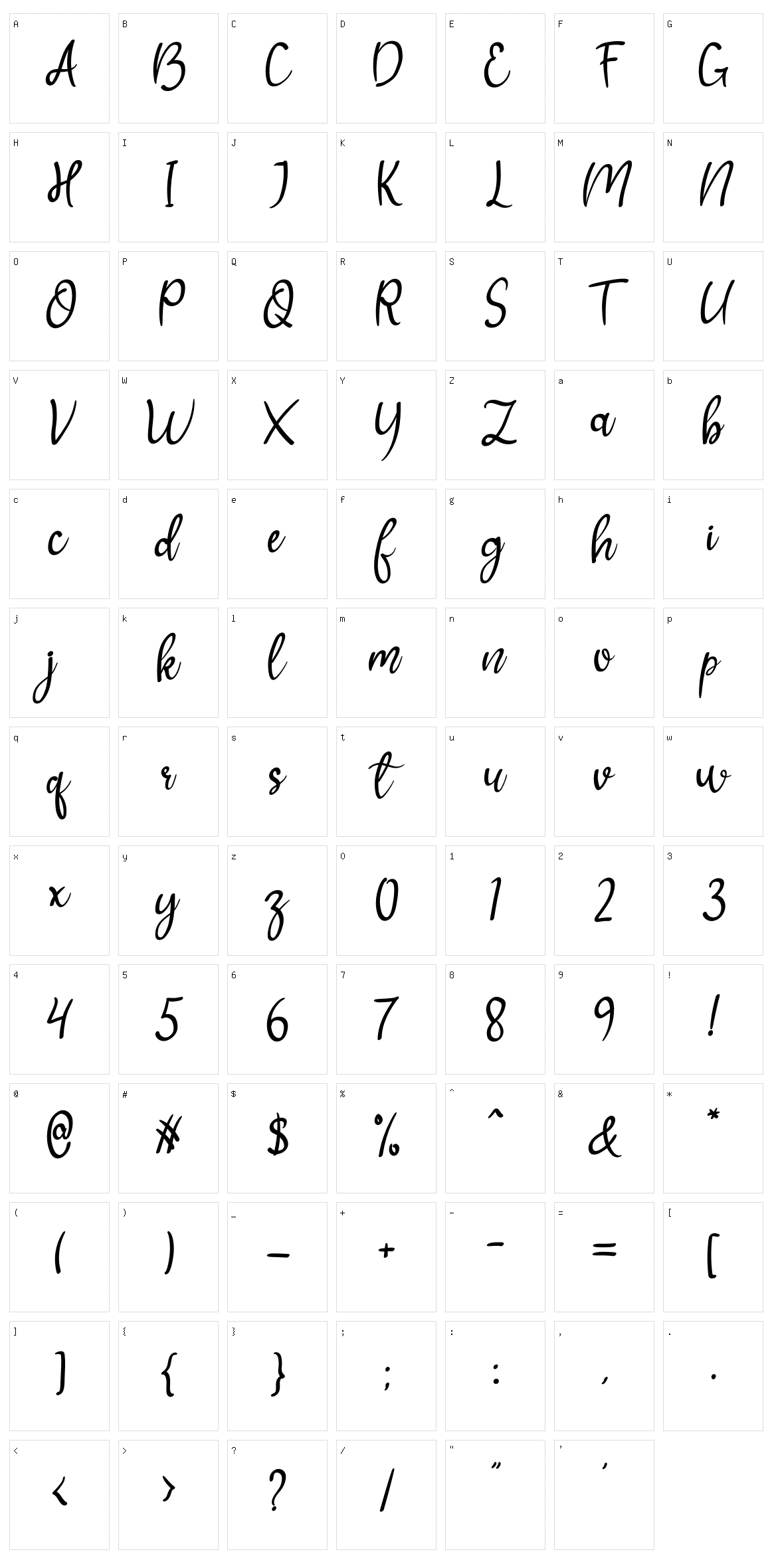
The free font Besbogo is carefully designed by Metal Studio, showcasing a thoughtful balance of creativity and usability and falls under the Script font style. When you download the ZIP file, it contains only 96.62 KB of font files, making it lightweight and quick to download. Please review the license details below to understand permitted usage and distribution rights. If license information is not available, we recommend using this font for personal projects only or contacting the author directly for commercial usage permissions.